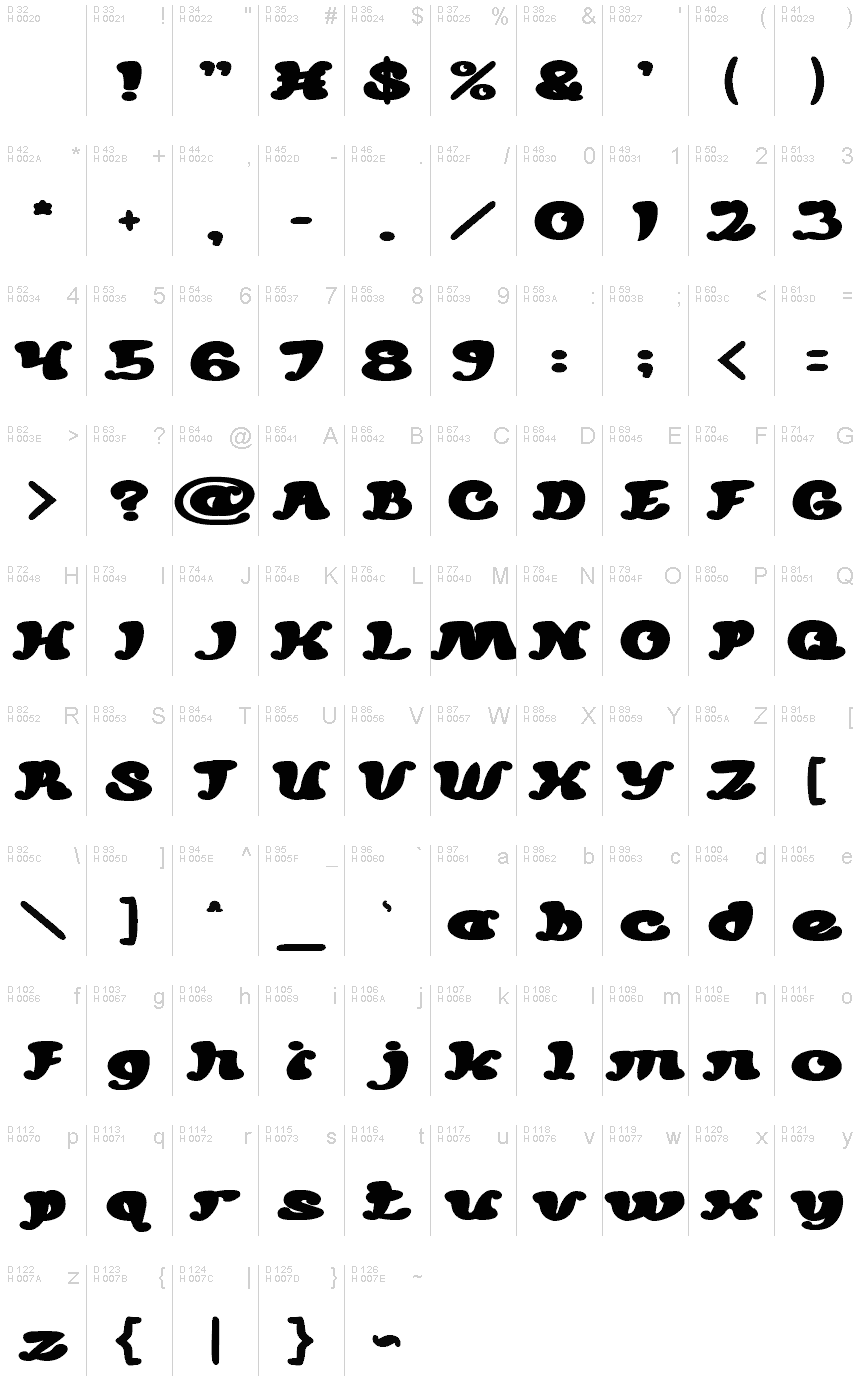
MEXICANO CHILLI SAUCE Bold
Mexicano Chilli Sauce is a bold, vibrant font that exudes a fiery, unapologetic personality. The expanded letterforms and distinctive, chili-inspired shapes immediately command attention, evoking the vibrant flavors and cultural richness of Mexican cuisine. This display font's dramatic flair and impactful presence make it an ideal choice for headlines, logos, and other design elements where you seek to make a bold, memorable statement.
Embracing its unique character, Mexicano Chilli Sauce can lend an exciting, contemporary edge to branding, packaging, and promotional materials for spicy food products, Latin-inspired establishments, or any design seeking to capture a sense of authentic, fiery passion. Its assertive, uncompromising style ensures this font will not go unnoticed, making it a versatile tool for designers seeking to create designs that truly stand out.